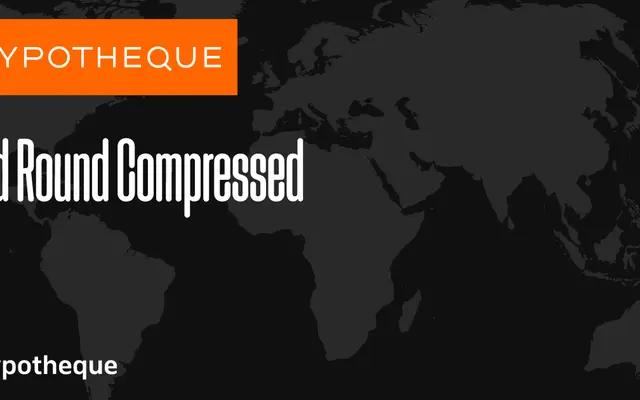
Zed Round Compressed
Typotheque
Zed Round Compressed specimen from Typotheque
One width variant within Typotheque's vast Zed system, a geometric sans with rounded terminals spanning nine widths, nine weights and three slope variants.
Zed Round Compressed sits inside a meticulously structured superfamily that runs from Extra-Compressed to Extra-Wide across both Display and Round subfamilies, plus a Text subfamily and an Icons set. Each width offers Hairline through Black in upright, slanted and backslanted cuts, with individual styles named after cities. The variable font edition collapses the entire weight and width range into a single file, making the system practical for complex editorial and branding work.
Zed Round Compressed is part of a large systematic display family with geometric construction and rounded terminals, available across an extensive range of widths and weights intended primarily for display use.